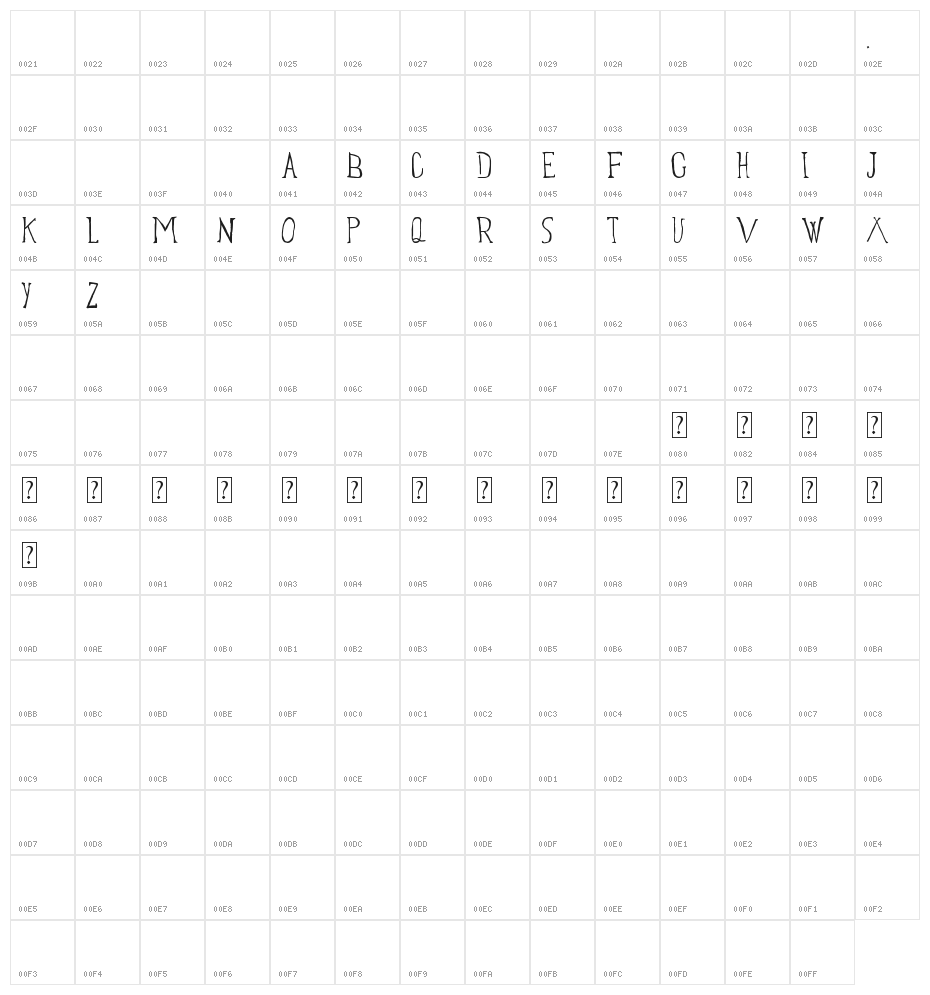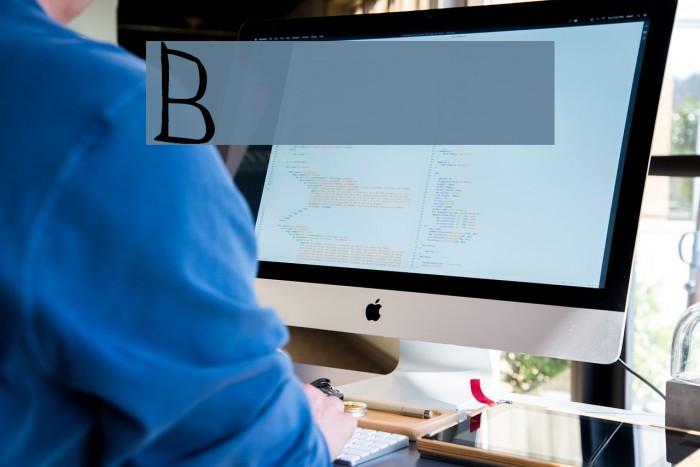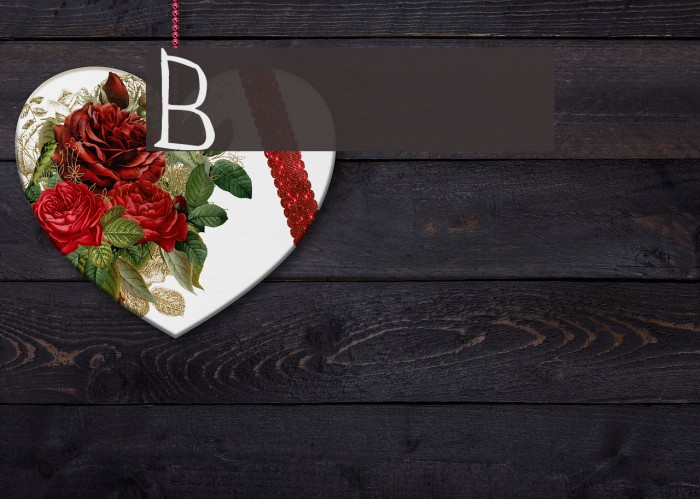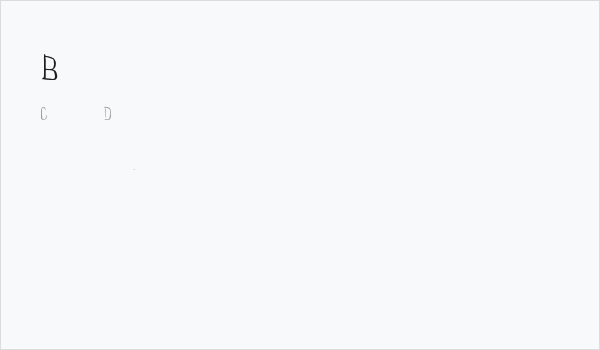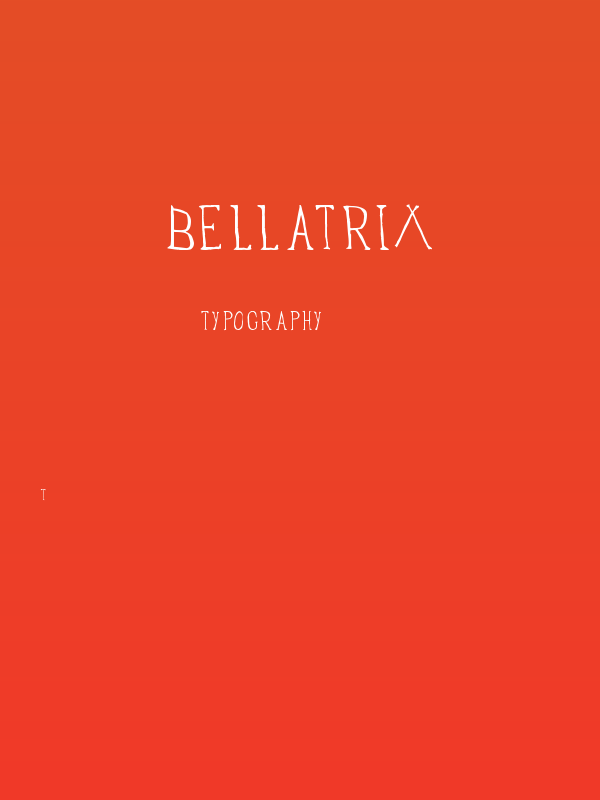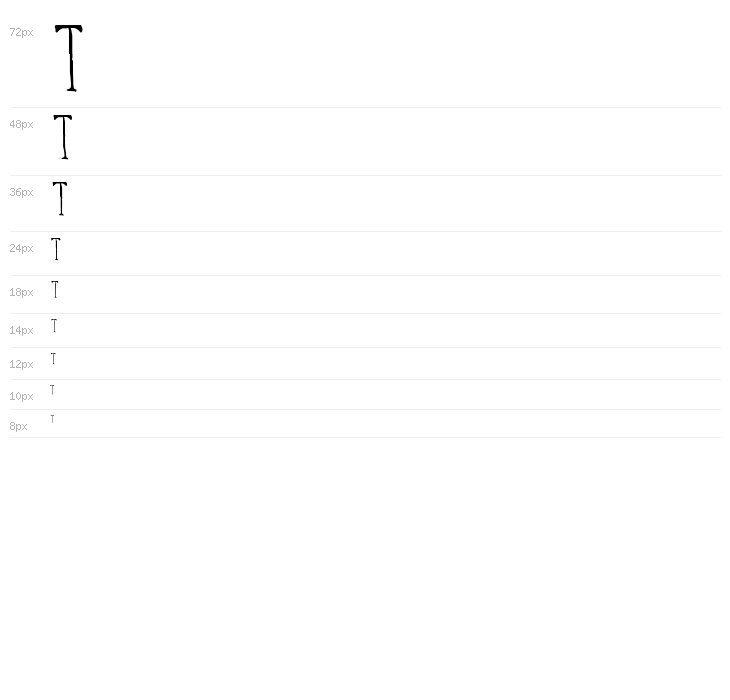
Bellatrix Font
Bellatrix Description
This font features a distinctive, hand-drawn style that combines elements of both serif and decorative design. The uppercase letters exhibit a playful yet elegant appearance, with varying stroke widths that add a dynamic and artistic flair. The characters have a slightly irregular baseline, enhancing the handcrafted feel. The font's unique personality is further emphasized by the subtle curves and angles, making it suitable for creative and expressive projects. Its artistic nature makes it ideal for designs that require a touch of whimsy and individuality.
Overall StyleArtistic, Handcrafted
Use CaseHeadlines, Posters, Invitations
Proposed ProjectsPerfect for artistic projects, invitations, posters, and branding that seeks a unique and handcrafted touch.